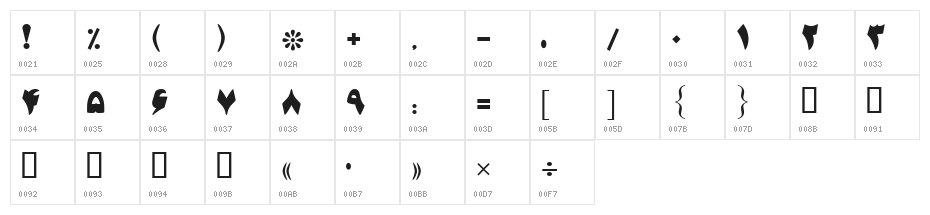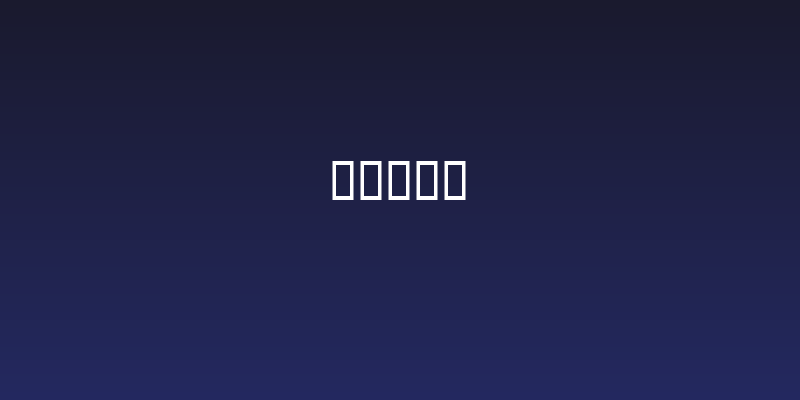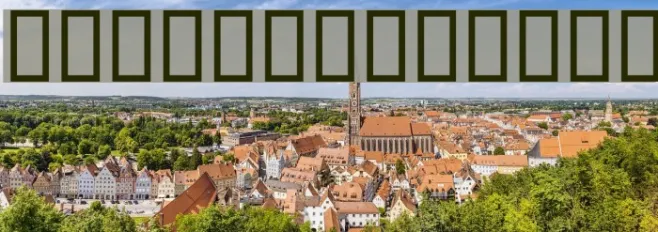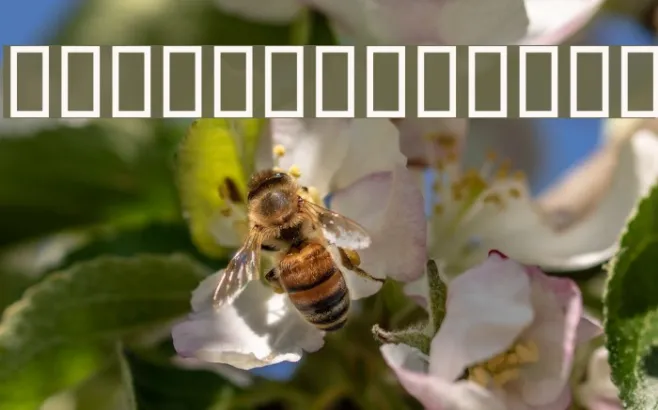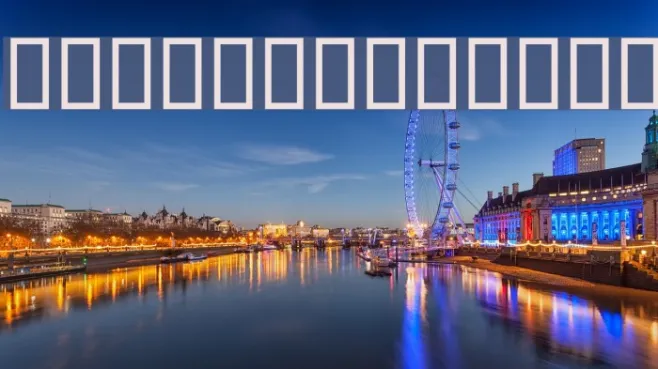
Jadid Font
Jadid Description
This font features a bold and dynamic style with a strong presence. The characters are designed with a unique flair, incorporating sharp angles and curves that give them a distinctive look. The numbers and special characters follow the same bold and expressive design, making them stand out. This font is ideal for projects that require a strong visual impact and a modern, artistic touch.
| Use Case | Logos, Posters, Headlines |
| Proposed Projects | Ideal for branding, posters, and creative design projects that require a strong visual impact. |